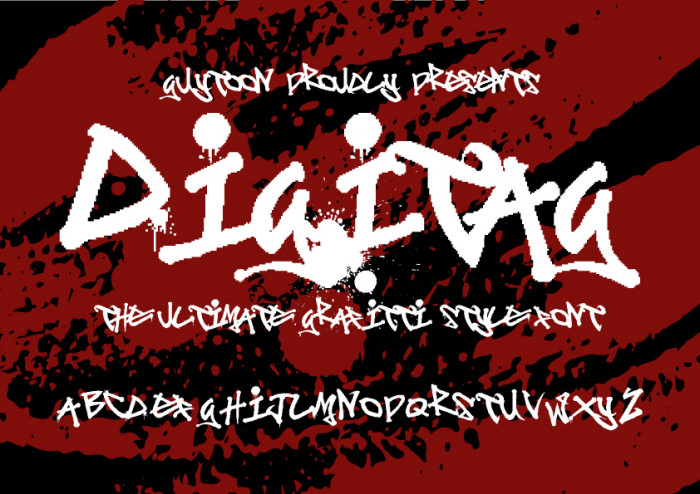
Very impressive...you need a sample to show this off!
Impressive indeed, paintdrips and all!
Your neighbour will appreciate the alternative I'm sure...
Simply genial! My 10 2U!
Awesome work! You've really captured that graffiti feel. elmoyenique's sample shows it off well.
Absolutely amazing!
Has that 'freshly-sprayed' look. Love the drips.
Thanks for your comments guys! I was a little disappointed at the result with the font at size as it looks to jaggy
Digitag in action
I love it, work well with the sample
It takes a special kind of thought process to make a modular system create something so fluid. Very well done.
this looks pretty real i like it 11/10
Incredible!